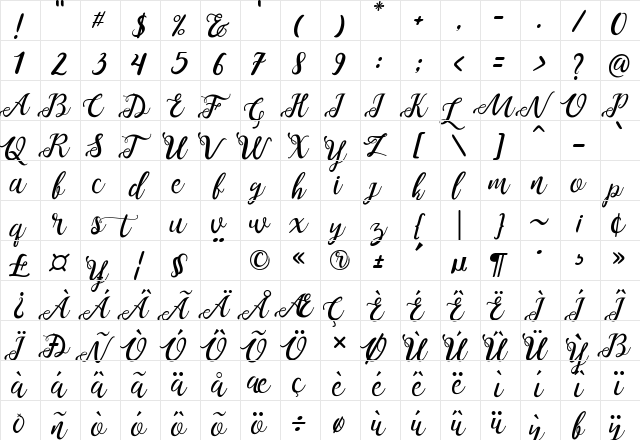
noelan script
| Style | script |
| Foundry | Hindra permana |
Design Context for noelan Typeface
noelan flows with the natural rhythm of handwritten lettering, making it ideal for designs that call for warmth and personal expression.
Font Pairing: Combine noelan with a simple geometric sans for maximum contrast — the tension between flowing curves and clean structure is a classic typographic pairing.
Pro Tip: Use noelan for short runs of text — names, titles, or taglines. Extended body copy in script faces tires the eye quickly.